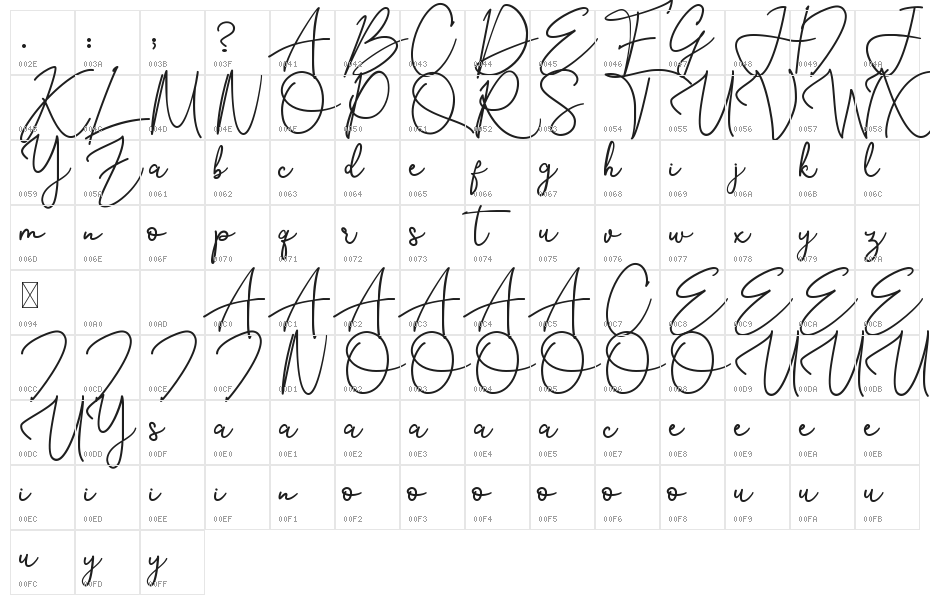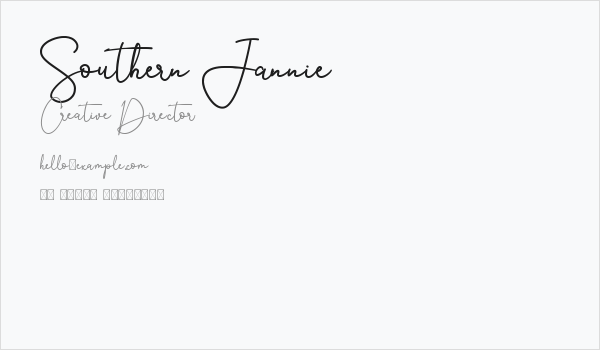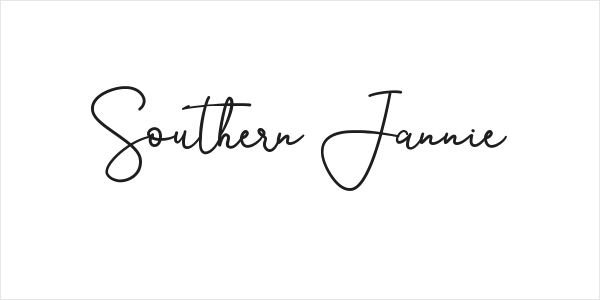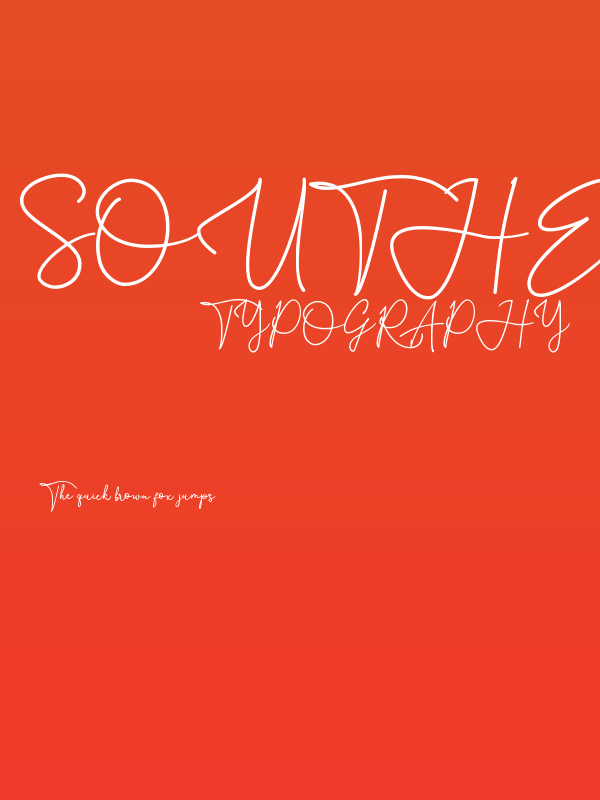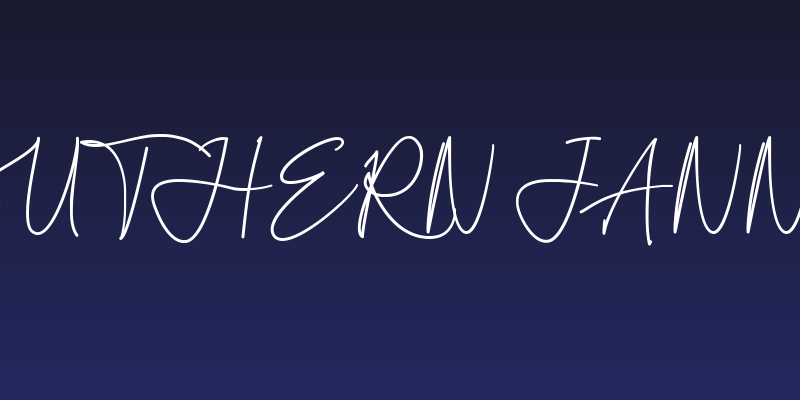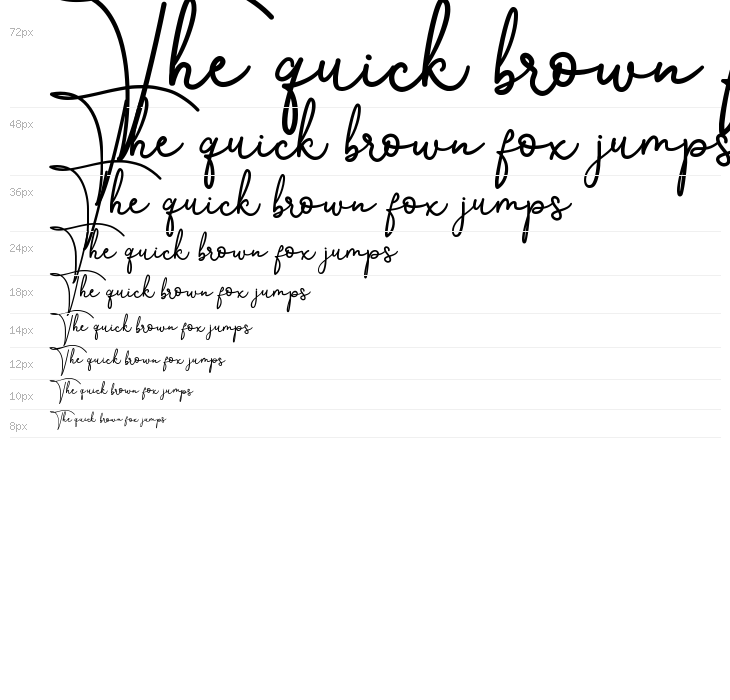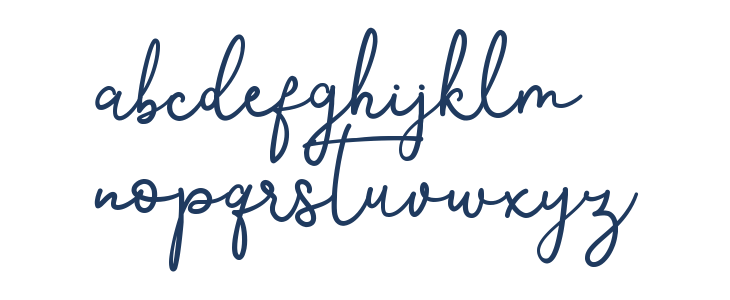
Southern Jannie Font
Southern Jannie Description
This font features an elegant, flowing script style that mimics natural handwriting. The uppercase letters are tall and slender, with a slight slant that adds a touch of sophistication. The lowercase letters are more rounded and connected, creating a seamless flow that enhances readability. The strokes vary in thickness, providing a dynamic and lively appearance. The overall design is both graceful and modern, making it suitable for a variety of creative applications. The font's unique character and charm make it ideal for projects that require a personal touch.
| Use Case | Logos, Invitations, Headlines |
| Proposed Projects | Ideal for wedding invitations, greeting cards, branding, and social media graphics. |